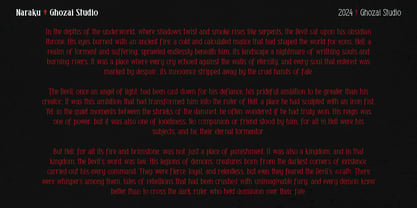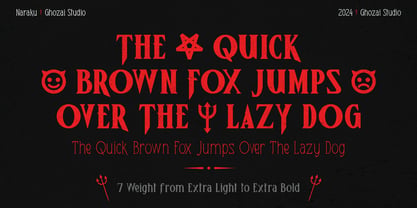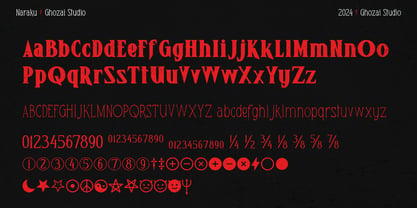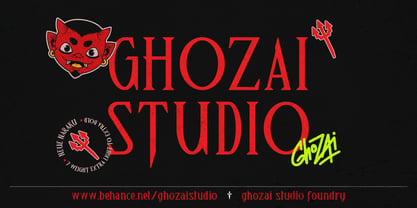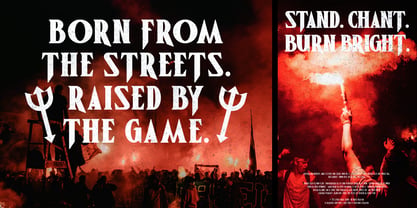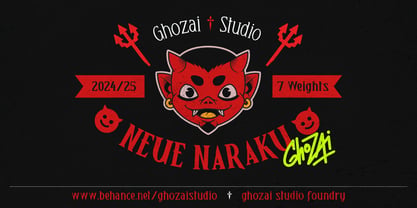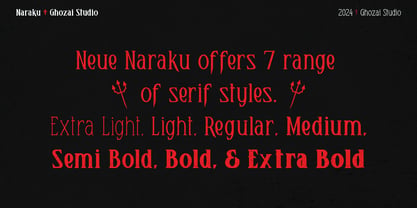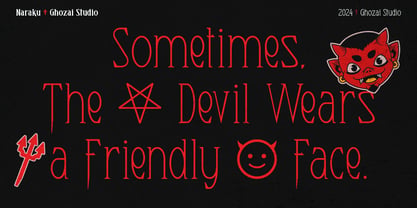
Neue Naraku
by Ghozai Studio
The Neue Naraku Font Family was designed by Manzur Ghozaali and published by Ghozai Studio. Neue Naraku contains 7 styles and family package options. More about this family
Neue Naraku is the development of the previous Naraku font family, designed to offer even more versatility and style for creative projects. With 7 distinct weights, ranging from Extra Light to Extra Bold, Neue Naraku provides a wide range of expressive possibilities. The font combines both bold and thin strokes, creating a striking contrast that lends it a dynamic, modern appearance. With its ability to balance bold statements with subtle elegance, Neue Naraku is an ideal solution for a variety of creative ventures whether you're working on a sports team logo, a thrilling horror poster, a sleek website, or an eye-catching band flyer, Neue Naraku’s versatile range ensures it can adapt to any concept.
Designers: Manzur Ghozaali
Foundry: Ghozai Studio